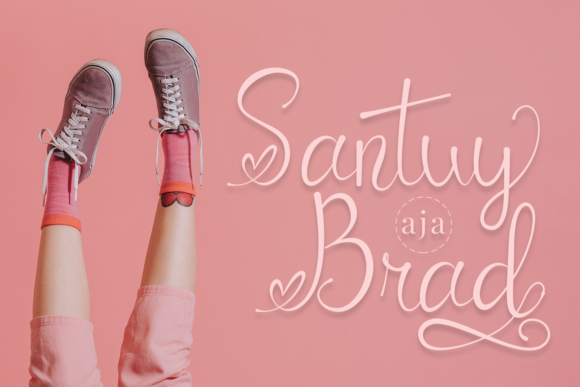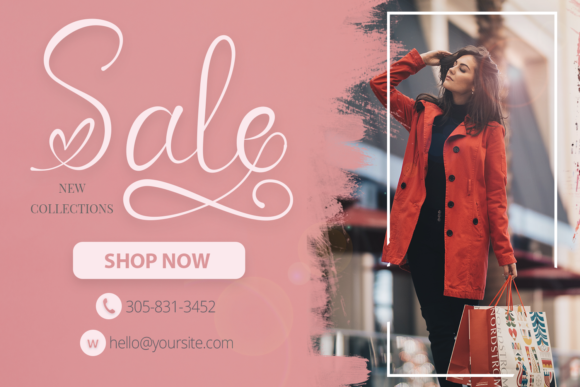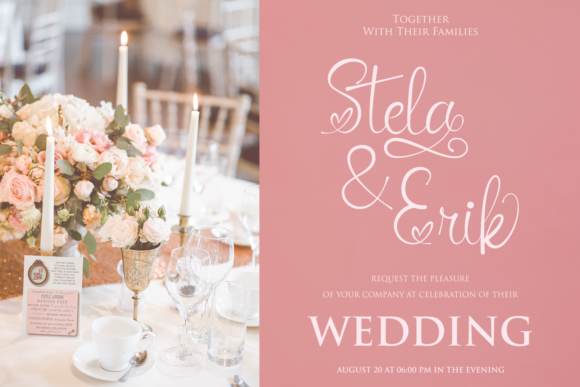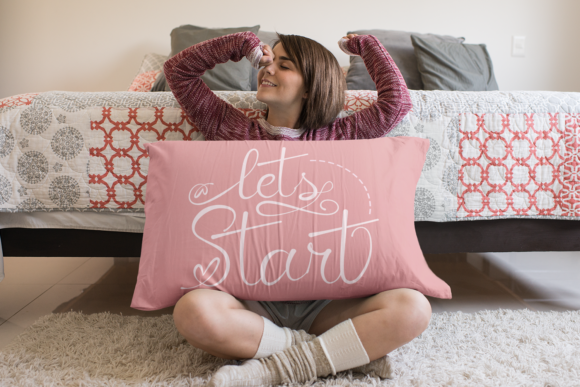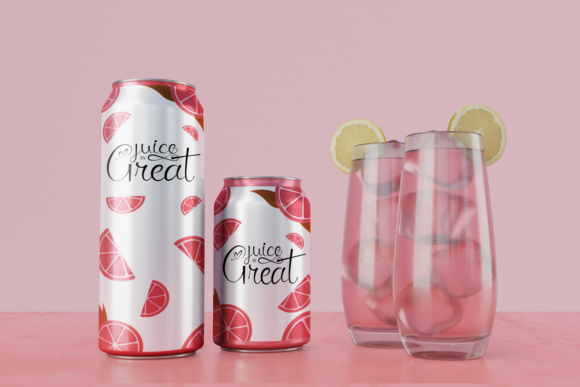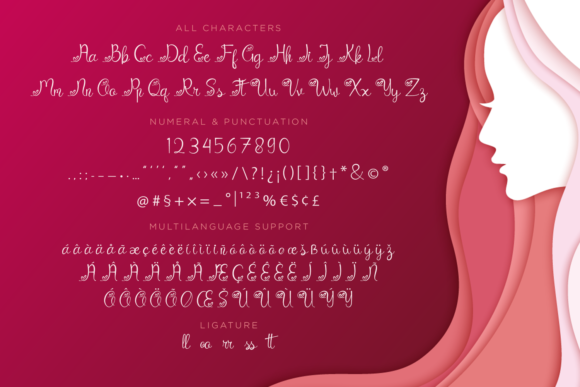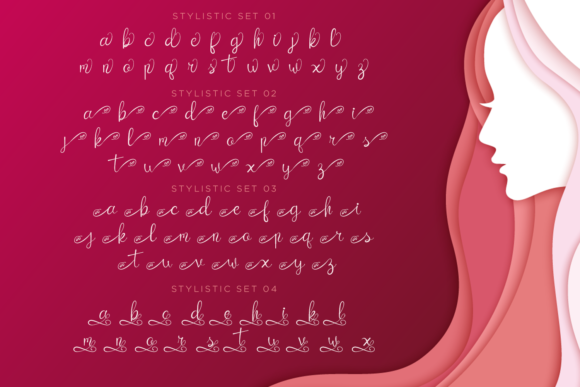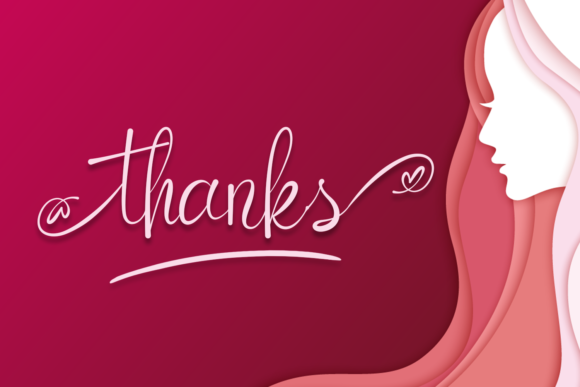
HomeScript FontsCatrina Script Font Script Fonts Catrina Script Font FacebookXPinterestWhatsApp Catrina Script Font Poster 2 Catrina Script Font Poster 3 Catrina Script Font Poster 4 Catrina Script Font Poster 5 Catrina Script Font Poster 6 Catrina Script Font Poster 7 Catrina Script Font Poster 8 Catrina Script Font Poster 9 About Catrina Script Font Catrina Script is a lovely font featuring flowing curves. It will add a romantic touch to any crafting project! DOWNLOAD ON CREATIVE FABRICAThis font is sold and delivered by Creative Fabrica. Font Canyon may earn a commission if you buy through this link. People also explored Umbrella Font Red-Nosed Font Jamaica YWFT Basel Garash Script The Easter Font Hugging Font Nigthwel Script Font White Dandelion Font 361 0 TagsCatrina Script Font Previous articleMonthany FontNext articleBillabang Font LEAVE A REPLY Cancel reply Comment: Please enter your comment! Name:* Please enter your name here Email:* You have entered an incorrect email address! Please enter your email address here Website: Save my name, email, and website in this browser for the next time I comment. Personal Use Free Shrag Script Personal Use Free Read more about this font BD Medled Personal Use Free Read more about this font Peachy Rose Personal Use Free Read more about this font My Ugly Handwritting Personal Use Free Read more about this font BLOG Top 7 Google Fonts Alternatives for Faster and Privacy-Friendly Web Design (2025) Top 7 Google Fonts Alternatives for Faster and Privacy-Friendly Web Design (2025) When it comes to web typography, Google Fonts has long been the go-to... Transform Your Website: Elevate Your Typography with 7 Best Web Font Generators Where to Buy American Fonts Online in 2024 Top 10 Handwritten Fonts That Elevate Your Designs